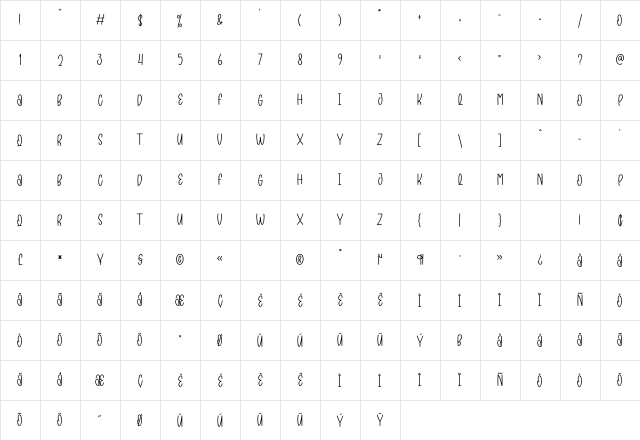
Complete Christmas Cookies Regular glyph index. Displaying only characters natively supported by Christmas Cookies Regular font.
Christmas Cookies is a composed and adaptable typeface that performs quietly and consistently across a wide range of design contexts.